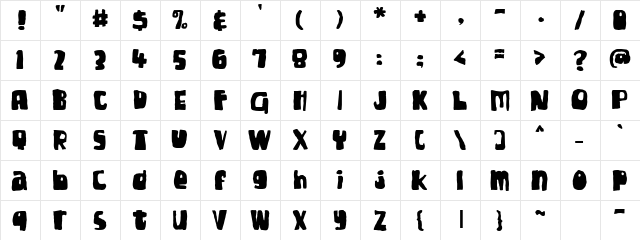
CK Rough Housing Regular
Design Context for CK Rough Housing Typeface
CK Rough Housing trades polish for personality, using distressed and eroded forms to bring grit and attitude to creative work.
A strong fit for alternative music projects, graffiti-adjacent design, and anything that deliberately resists polish.
Pro Tip: Use CK Rough Housing at larger sizes where the texture and irregularity of each letterform can be clearly seen — it loses its character at small sizes.